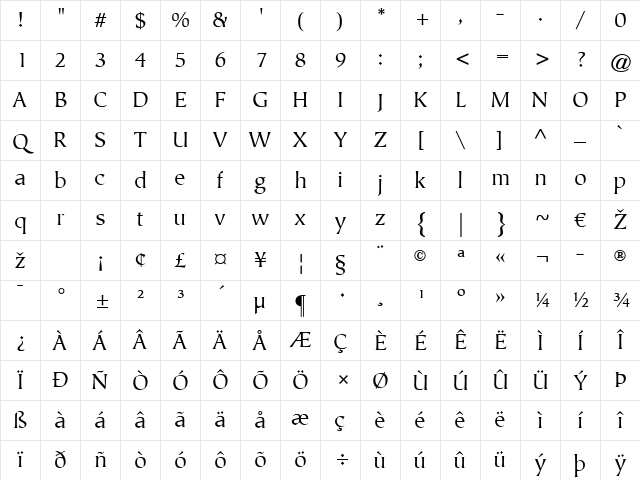
Tiepolo LT Book Regular
Design Context for Tiepolo LT Book
Tiepolo LT Book is a composed and adaptable typeface that performs quietly and consistently across a wide range of design contexts. Its slender proportions lend an understated elegance to any composition.